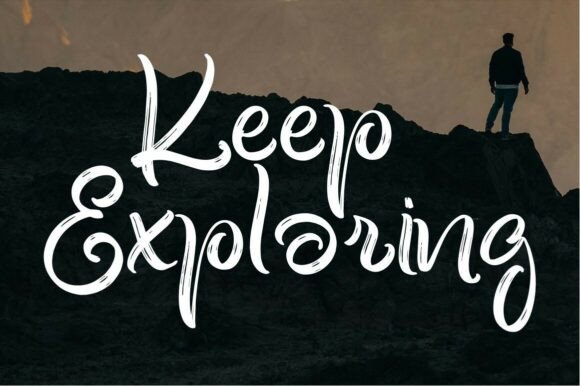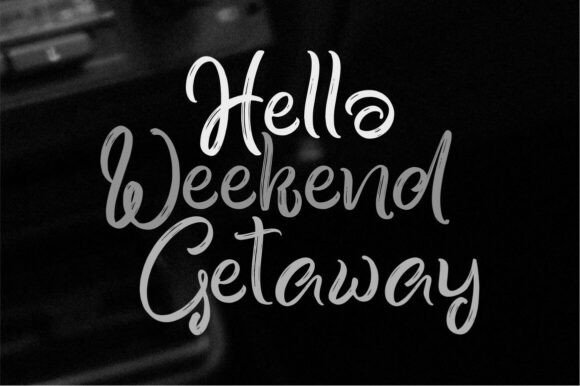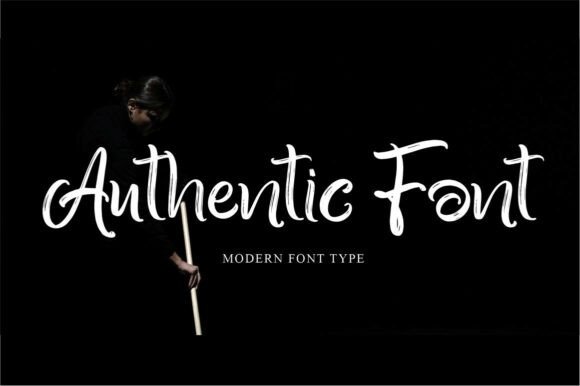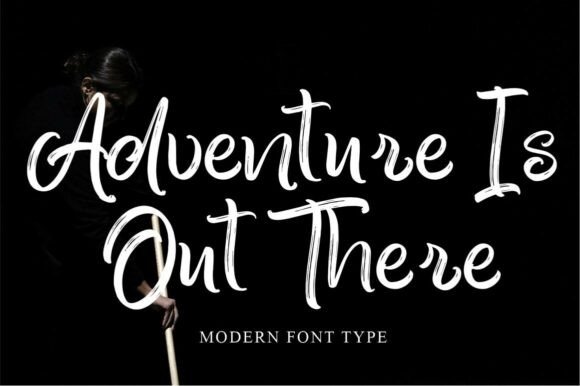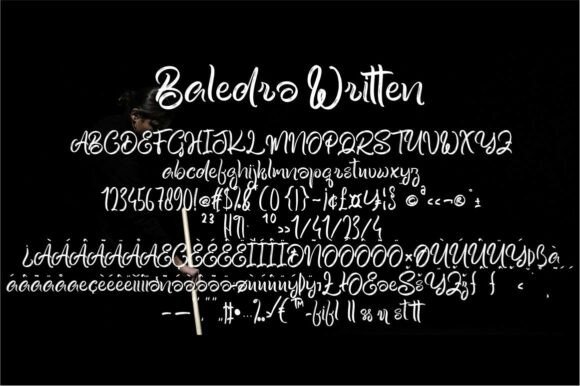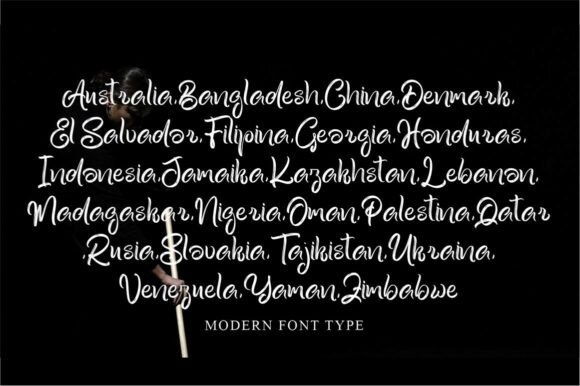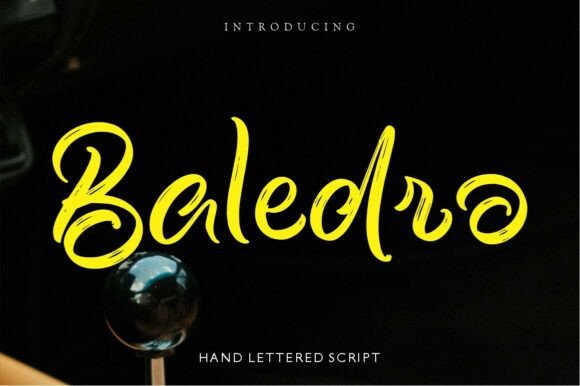
Introducing Baledro Font: The Perfect Blend of Handmade Texture and Modern Design
Are you tired of using the same old fonts in your designs? Look no further than Baledro Font, a textured brush font that brings a fresh and contemporary approach to typography. With its naturally handmade feel and underscores, Baledro is perfect for designers and crafters looking to add a personal touch to their work.
What Makes Baledro Font Special?
Baledro Font is more than just a font – it’s an experience. Its textured brush design gives it a unique, handmade feel that’s perfect for creating visually appealing designs. The font features a complete set of uppercase and lowercase letters, as well as multi-language support, numbers, and punctuation, making it versatile and easy to use.
One of the standout features of Baledro Font is its use of alternatives and ligatures. These special characters allow you to add an extra layer of creativity to your designs, making them more attractive and eye-catching. Whether you’re designing a logo, invitation, or social media post, Baledro Font has everything you need to make your design stand out.
Uses for Baledro Font
Baledro Font is incredibly versatile and can be used in a wide range of design applications. Here are just a few ideas to get you started:
• Title Design: Use Baledro Font to create bold and eye-catching titles for books, movies, and other creative projects.
• Apparel: Add a personal touch to your t-shirt designs, hoodies, and other apparel with Baledro Font.
• Invitations: Create beautiful and unique invitations for weddings, parties, and other special events.
• Stationery Design: Use Baledro Font to create custom stationery, including letterheads, business cards, and more.
• Branding and Logos: Create a lasting impression with Baledro Font, perfect for logos, branding, and marketing materials.
• Greeting Cards: Add a personal touch to your greeting cards, including birthday cards, holiday cards, and more.
• Packaging Design: Stand out on store shelves with Baledro Font, perfect for packaging design and labels.
• Posters: Create eye-catching posters for events, promotions, and more with Baledro Font.
Why Choose Baledro Font?
So why choose Baledro Font over other fonts on the market? Here are just a few reasons:
• Unique Design: Baledro Font features a unique and contemporary design that’s sure to stand out in any design.
• Handmade Feel: The textured brush design gives Baledro Font a naturally handmade feel that’s perfect for crafters and designers.
• Multi-Language Support: Baledro Font includes multi-language support, making it easy to use in a wide range of design applications.
• Complete Character Set: Baledro Font includes a complete set of uppercase and lowercase letters, numbers, and punctuation, making it easy to use in any design.
If you’re looking for a font that will add a personal touch to your designs, look no further than Baledro Font. With its unique textured brush design, handmade feel, and versatile character set, Baledro Font is perfect for designers and crafters alike. Whether you’re creating titles, apparel, invitations, or more, Baledro Font is the perfect choice.